25 Cursive Canva Fonts
Looking for some cursive Canva fonts? Then you are in the right place!
Cursive fonts have a way of adding elegance, personality, and a touch of artistry to any design. Whether you’re working on a wedding invitation, social media graphics, or a personal project, the graceful style of cursive fonts can instantly make it more appealing.
Canva, a popular platform well-known for its user-friendly interface, offers its users a list of cursive fonts that are great for giving your projects a classic and aesthetic look.
In this article, I will be sharing 25 cursive fonts that can be easily found on Canva so you can save time and focus on creating designs that stand out from the rest.
25 Cursive Canva Fonts
1. Alex Brush:
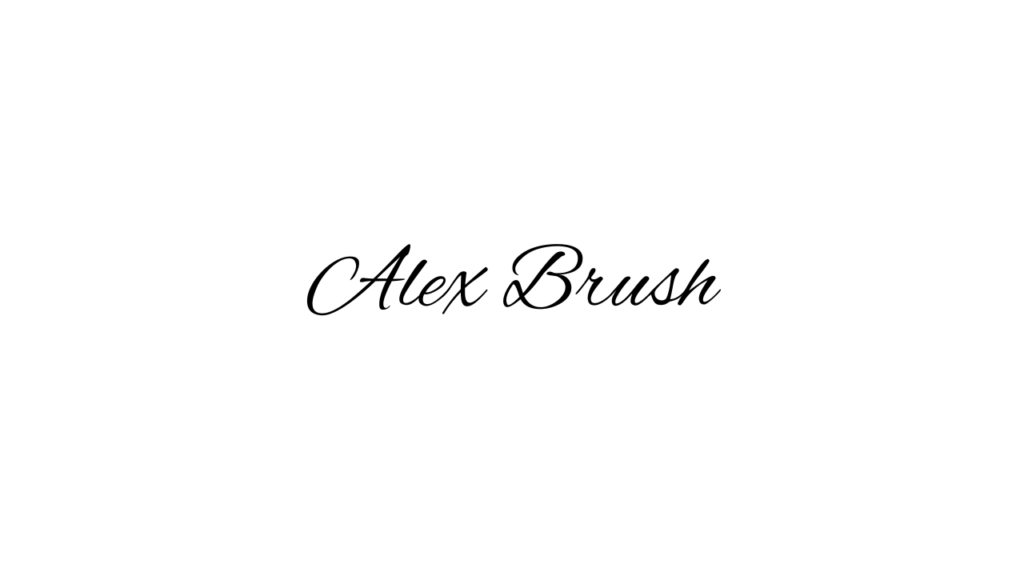
2. Comforter Brush:
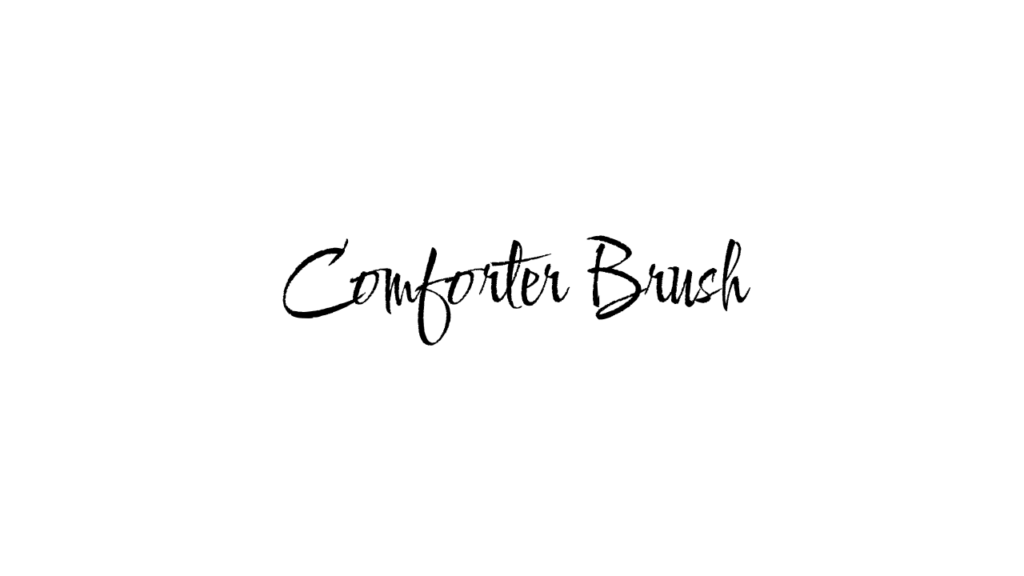
3. Best Light:
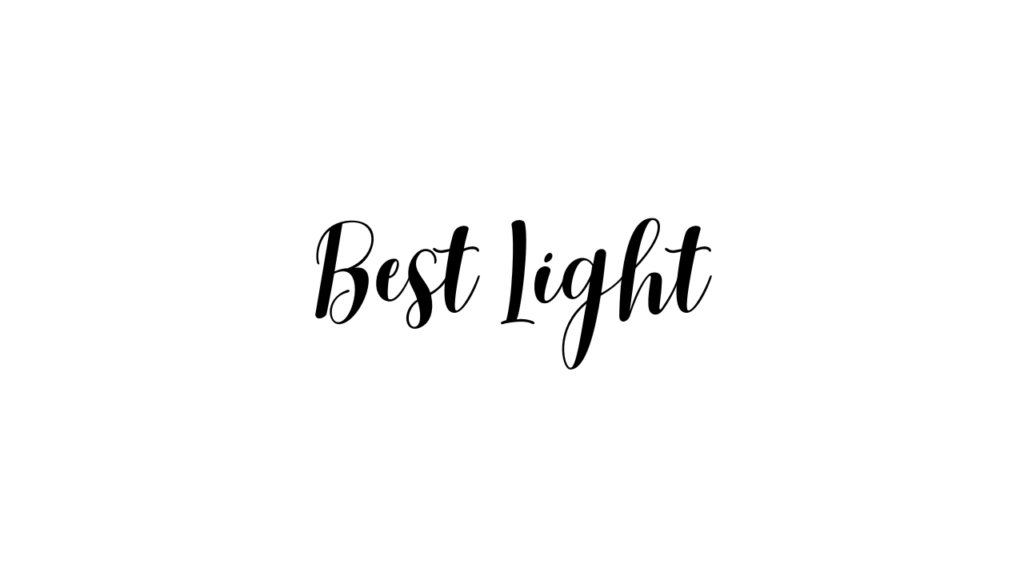
4. Feeling Passionate:
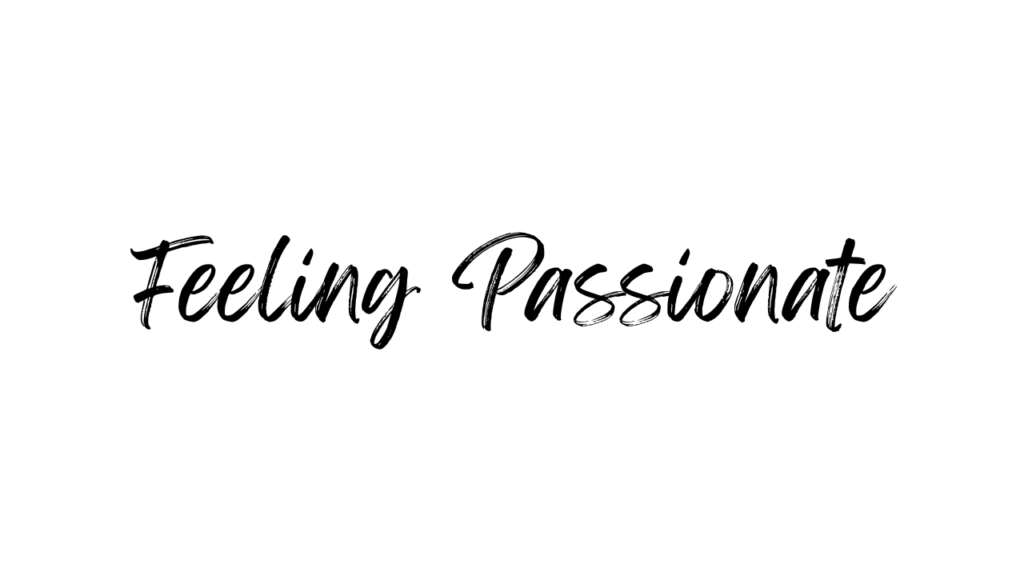
5. Allura:
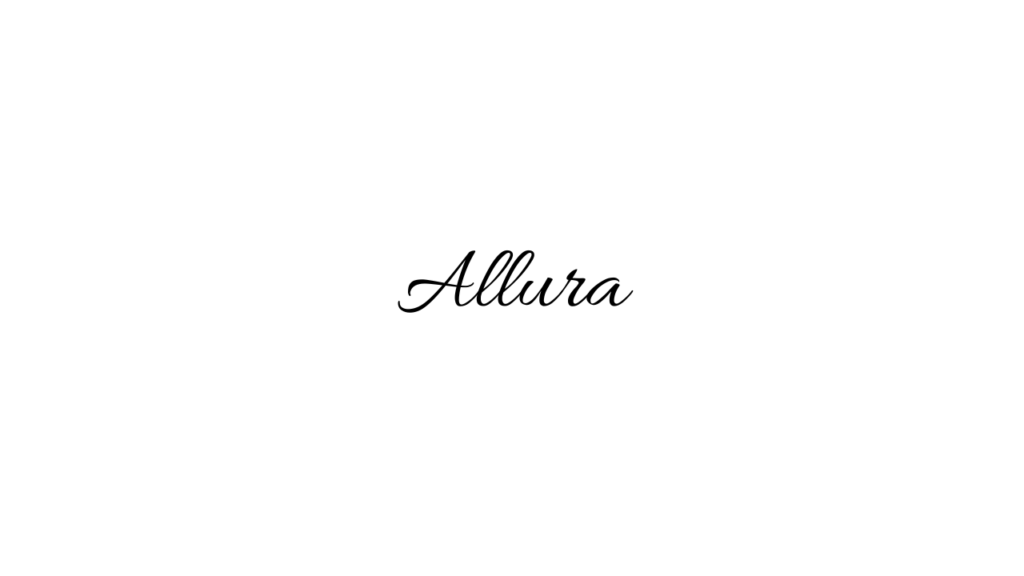
6. Amoresa:
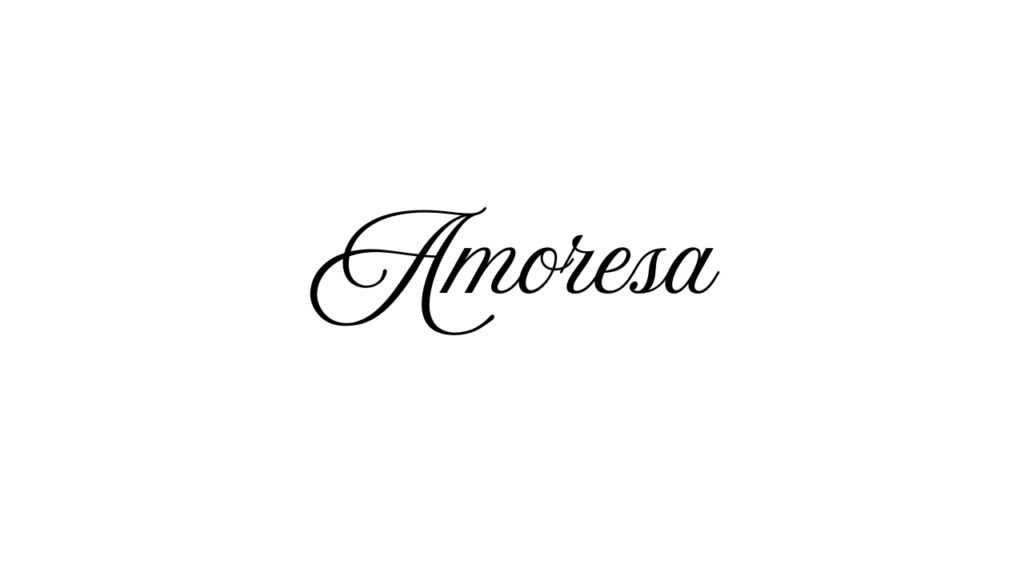
7. Amsterdam One:
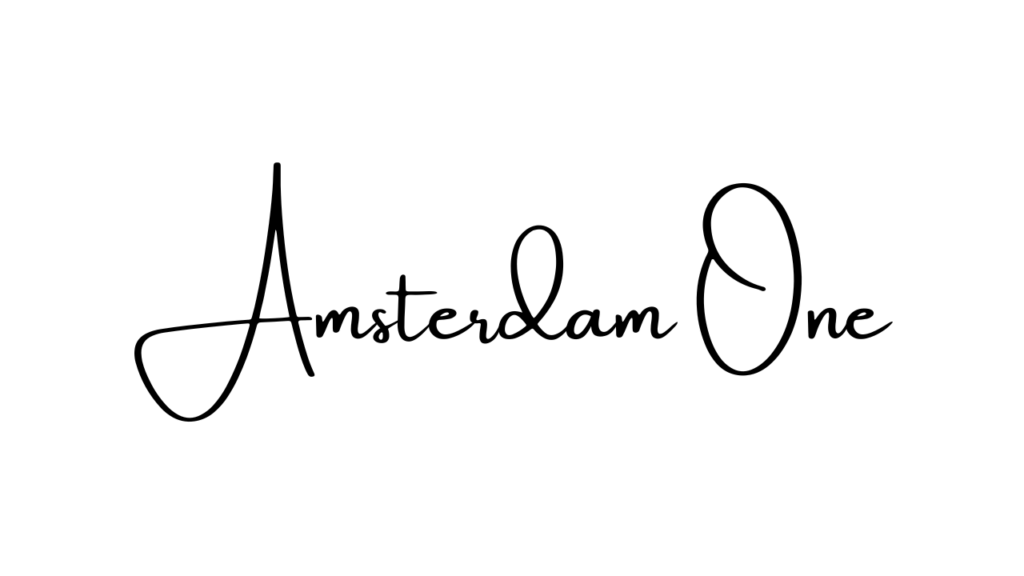
8. Amsterdam Two:
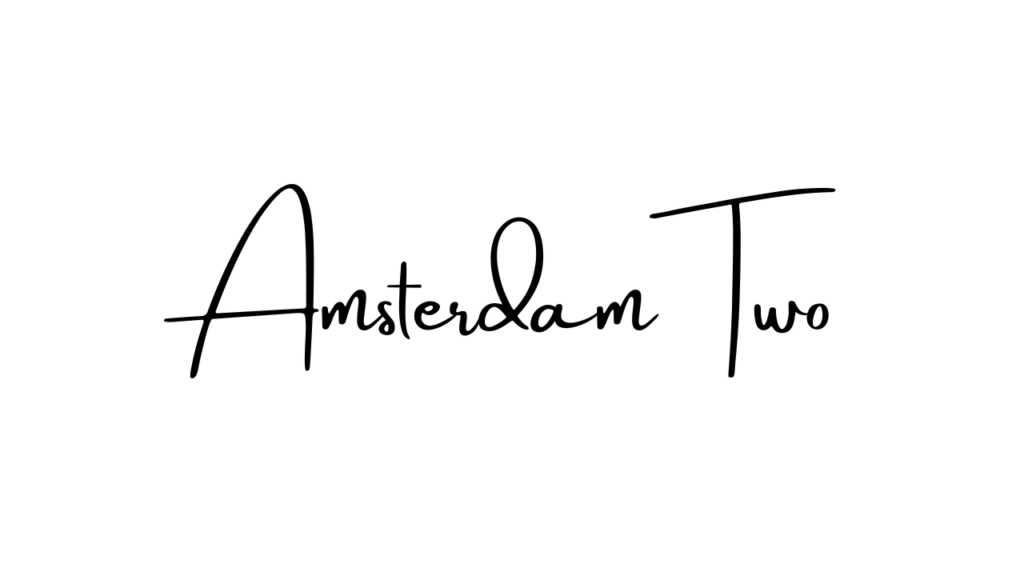
9. Amsterdam Three:
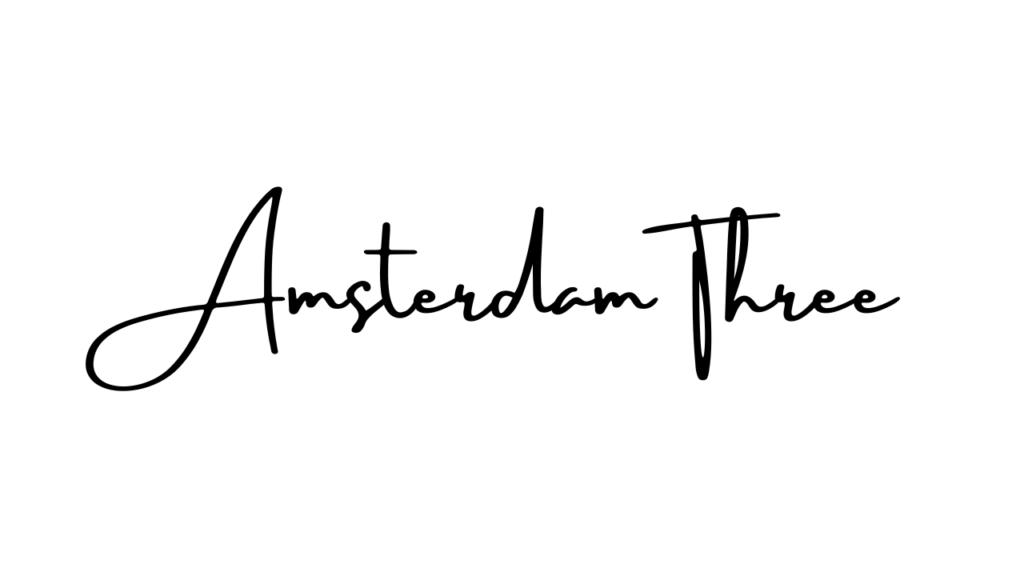
10. Amsterdam Four:
11. Ballet:
12. Breathing:
13. Le Jour Script:
14. Jimmy Script:
15. Handelson Three:
16. Slight:
17. White Star:
18. Brittany:
19. Mistrully:
20. Railey:
21. Westonia:
22. Gistesy:
23. White Star:
24. Parisienne:
25. The Youngest Script:
Conclusion